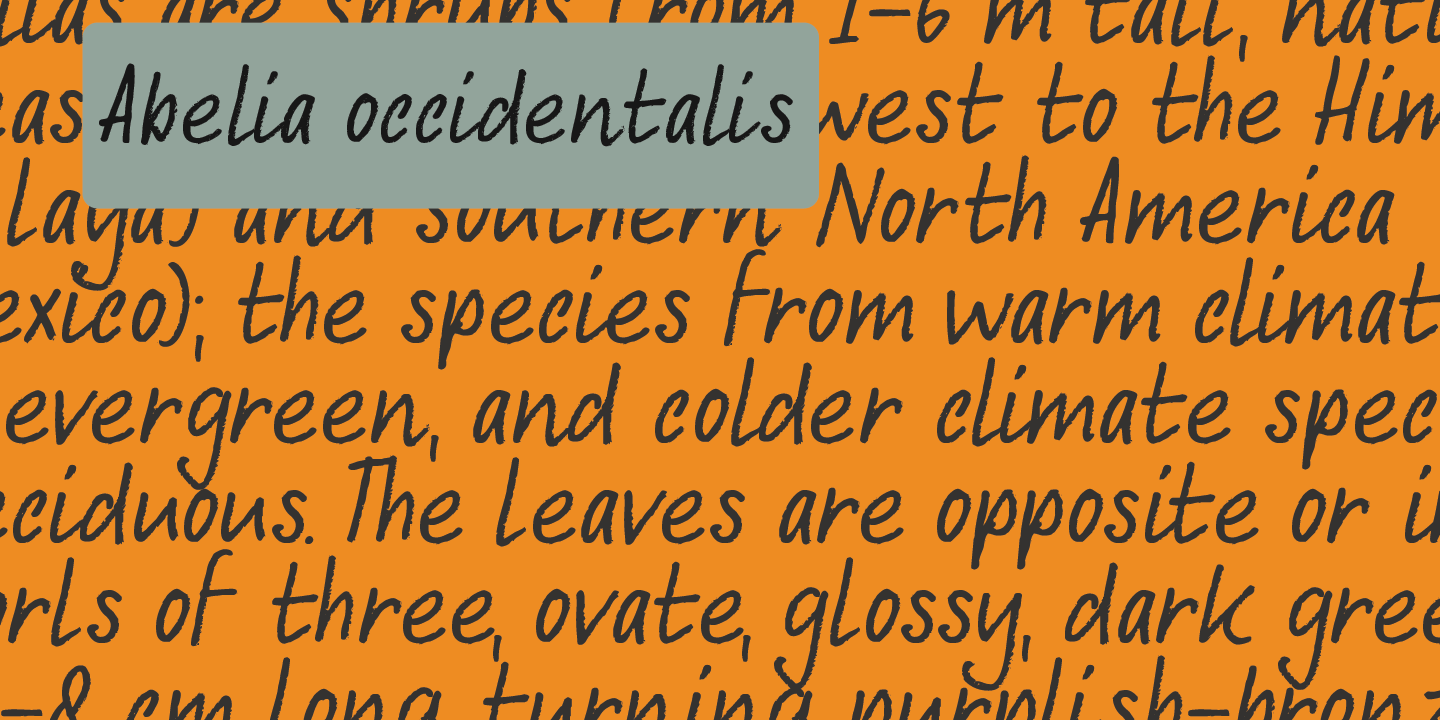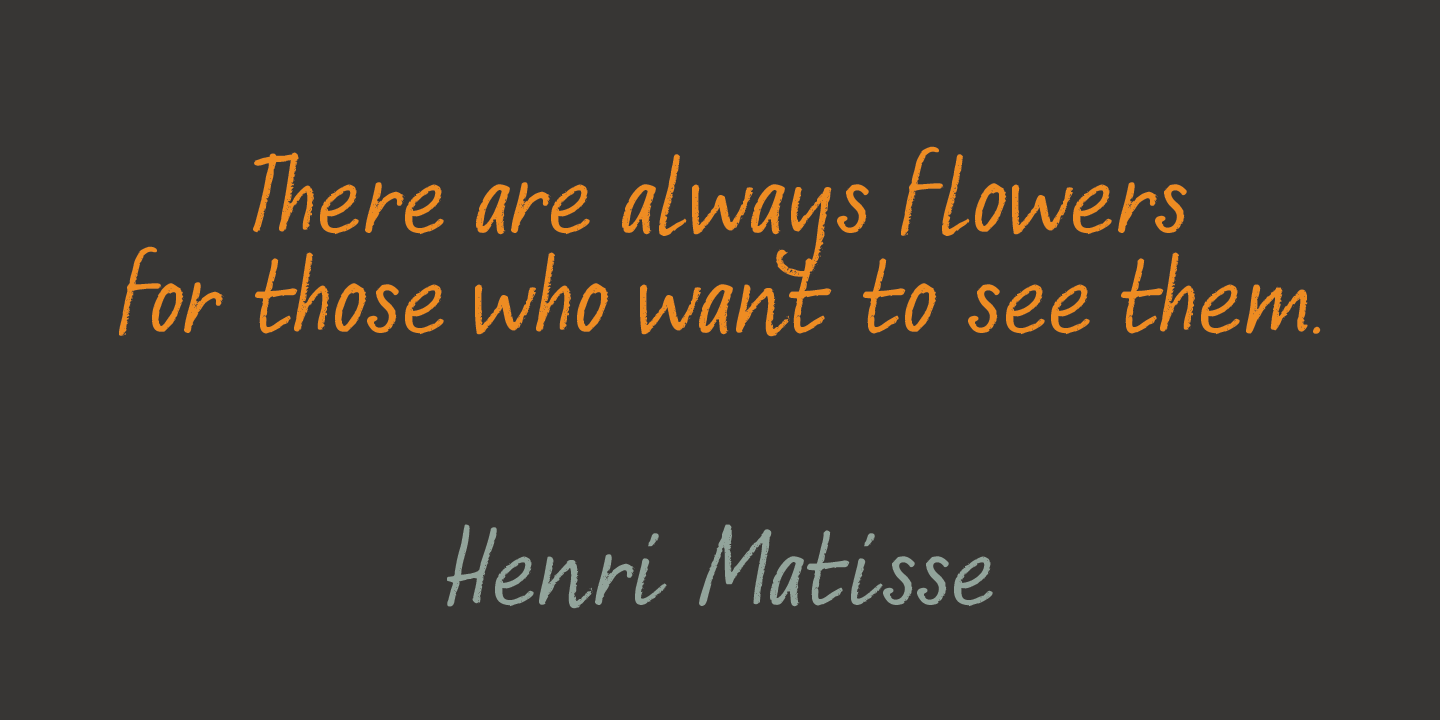
Abelia
Abelia is a rough(ish), cursive, handwritten font. It was made with an almost dried up felt tip pen, so as to create some roughness in the edges. It comes with a generous amount of diacritics. For those who are just dying to know: Abelia is a honeysuckle-like flowering shrub, native to Eastern Asia and Mexico.